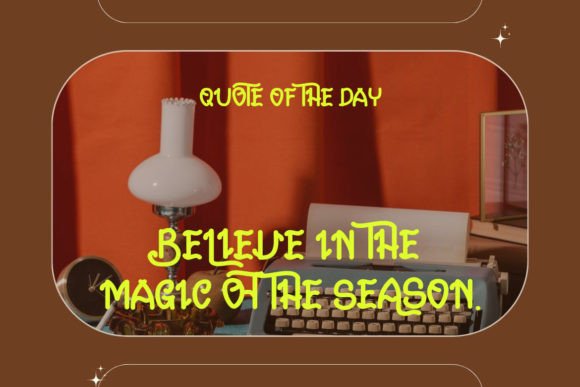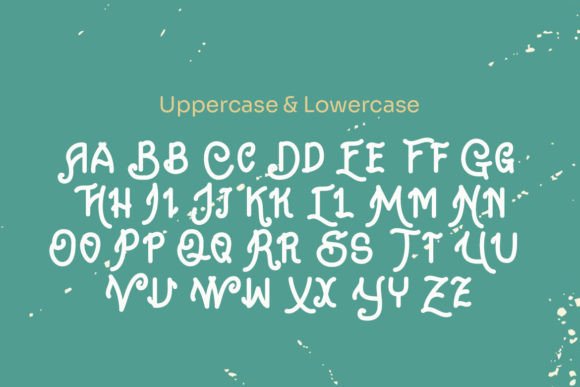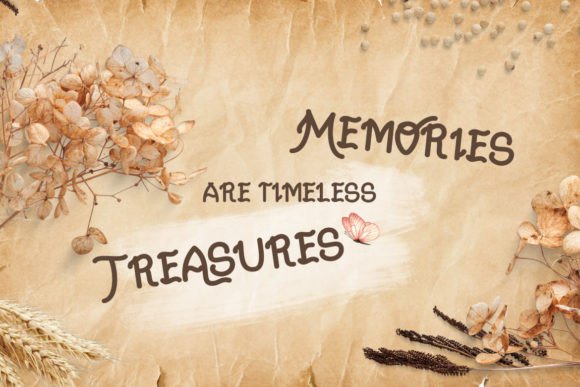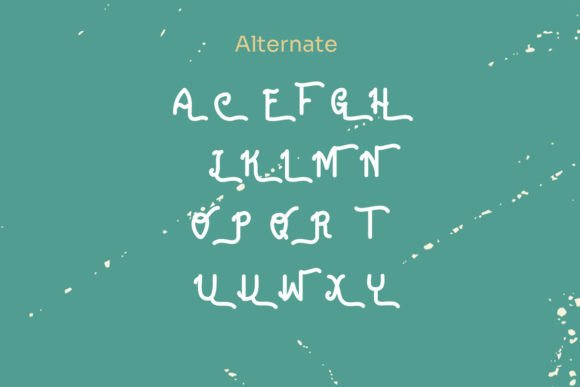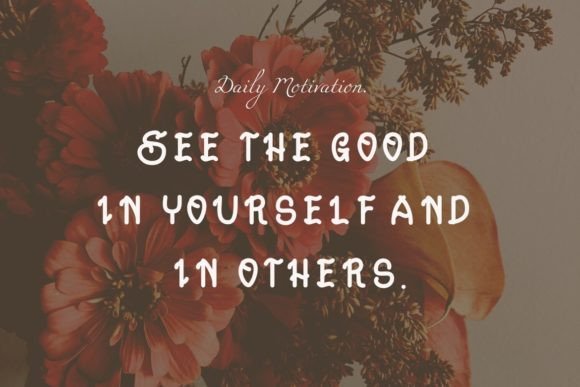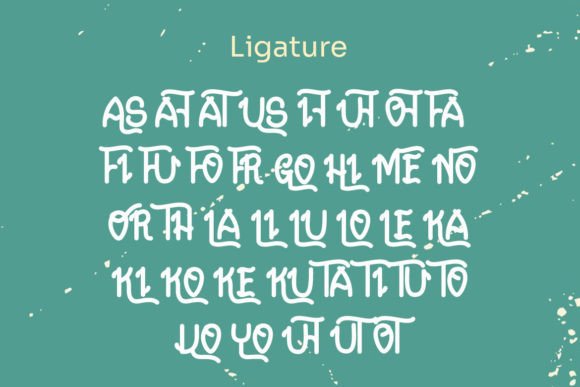
Introducing Estafosa Font: Add a Touch of Whimsy to Your Designs
Are you tired of using the same old fonts in your designs? Look no further than Estafosa Font, a fun and quirky handwritten font that’s sure to add a touch of whimsy to your creations. With its swirly and playful letterforms, Estafosa exudes a sense of creativity and joy that’s perfect for designers and crafters who want to make their work stand out.
The Characteristics of Estafosa Font
Estafosa Font is a unique and delightful font that’s characterized by its swirly and playful letterforms. The font features a range of flourishes and swashes that add to its whimsical feel, making it perfect for designs that require a touch of personality. Whether you’re designing invitations, greeting cards, or branding materials, Estafosa brings a level of charm and sophistication that’s hard to find with other fonts.
Uses for Estafosa Font
Estafosa Font is a versatile font that can be used in a wide range of design projects. Here are just a few ideas to get you started:
- Invitations: Add a touch of whimsy to your wedding invitations, birthday party invites, or baby shower announcements with Estafosa Font.
- Greeting Cards: Create unique and eye-catching greeting cards for special occasions like holidays, birthdays, or anniversaries.
- Branding Materials: Use Estafosa Font to add a touch of personality to your branding materials, such as business cards, brochures, or packaging.
- Signage: Estafosa Font is perfect for creating eye-catching signs for events, sales, or promotions.
Benefits of Using Estafosa Font
So why choose Estafosa Font for your design projects? Here are just a few benefits of using this unique and delightful font:
- Unique and Eye-Catching: Estafosa Font is a one-of-a-kind font that’s sure to grab attention and make your designs stand out.
- Whimsical and Playful: The font’s swirly and playful letterforms add a touch of whimsy and playfulness to your designs.
- Easy to Read: Despite its playful feel, Estafosa Font is easy to read and understand, making it perfect for designs that require a clear message.
- Versatile: Estafosa Font can be used in a wide range of design projects, from invitations and greeting cards to branding materials and signage.
Tips for Using Estafosa Font
Here are a few tips for getting the most out of Estafosa Font:
- Use it sparingly: Estafosa Font is a bold and eye-catching font, so use it sparingly to avoid overwhelming your design.
- Pair it with other fonts: Estafosa Font pairs well with other fonts, so experiment with different combinations to find the perfect look for your design.
- Experiment with colors: Estafosa Font looks great in a range of colors, so don’t be afraid to experiment and find the perfect hue for your design.
| Font Name | Estafosa Font |
| Author | Yumnacreative |
Estafosa Font is a fun and quirky handwritten font that’s perfect for designers and crafters who want to add a touch of whimsy to their designs. With its swirly and playful letterforms, Estafosa exudes a sense of creativity and joy that’s hard to find with other fonts. Whether you’re designing invitations, greeting cards, or branding materials, Estafosa brings a unique and delightful charm that’s sure to make your work stand out. So why not give Estafosa Font a try and see the difference it can make in your designs?
Get Creative with Estafosa Font
Ready to let your imagination run wild with Estafosa Font? Here are a few ideas to get you started:
- Create a handmade card: Use Estafosa Font to create a unique and eye-catching handmade card for a special occasion.
- Design a custom invitation: Add a touch of whimsy to your wedding invitation or party invite with Estafosa Font.
- Develop a brand identity: Use Estafosa Font to create a custom brand identity for your business or product.